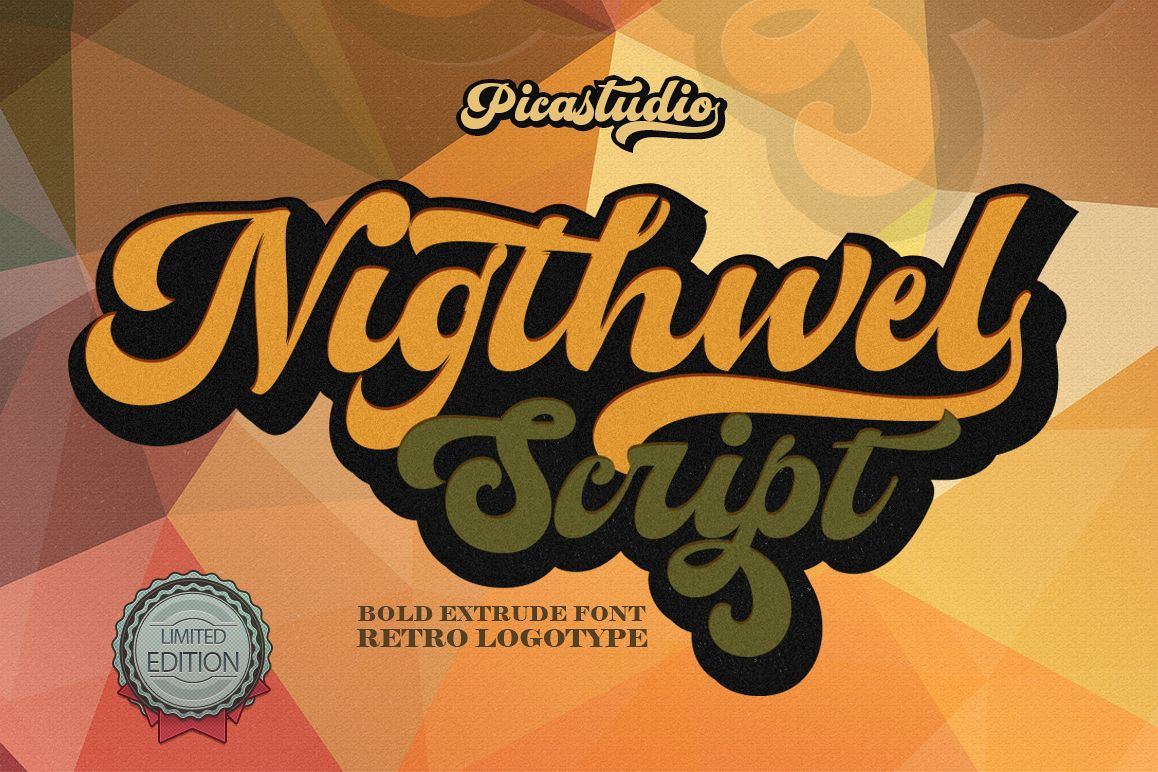
Nigthwel Script
Introducing
**Nigthwel Script** Inspired by Retro style and combination with Hand Lettering style.Nigthwel have many alternative swash & ligatures character and have opentype features like a stylistic alternatice, stylistic set, ligature and swash so you can mix and match like a you want.Nigthwel Script came with open type features such stylistic alternates, stylistic sets & ligatures good for logotype, poster, badge, book cover, tshirt design,handwritten quotes, product packaging, header, poster, merchandise, social media & greeting cards.